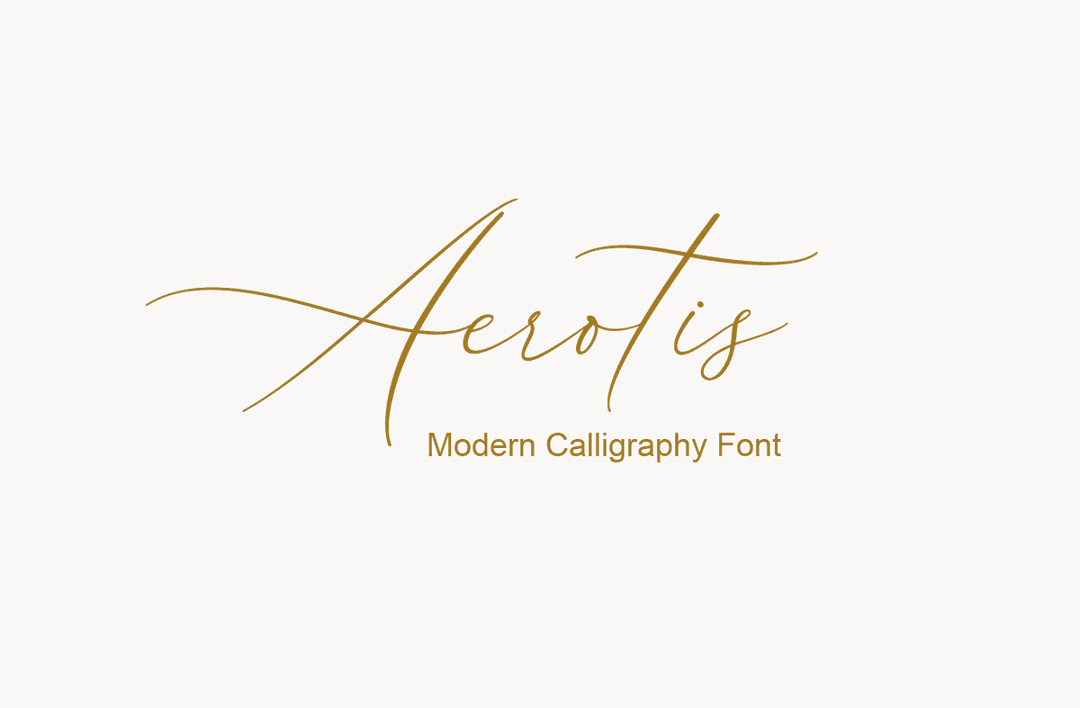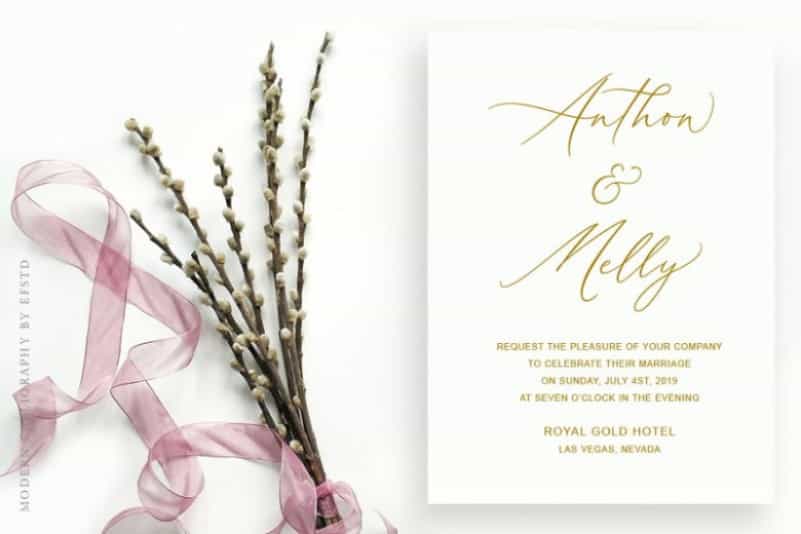
Aerotis Font. I really hope we all are rotis. If you all have used this font in your work, and this font is easily and simply used in your work. The font family is Aerotis, a classy modern calligraphy font, spread stylish through your championing projects.